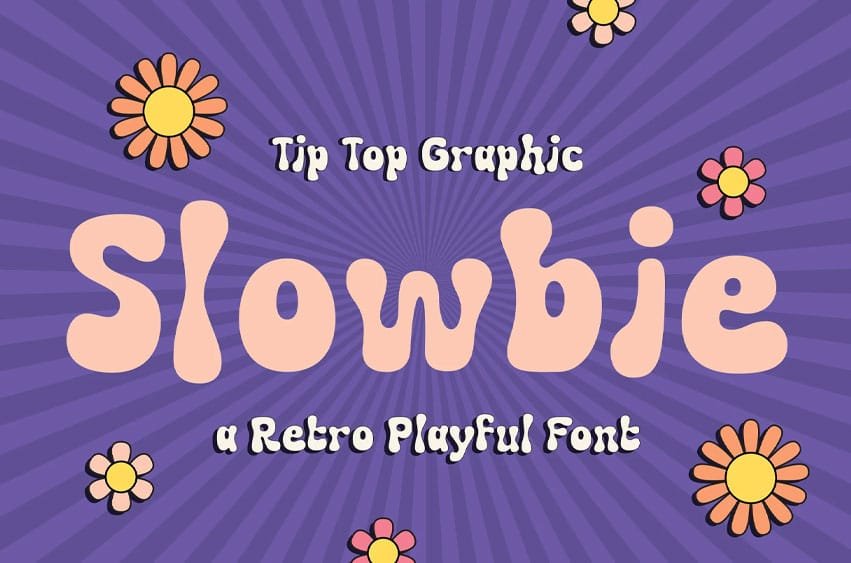
Slowbie Font is a bold and cheerful retro display font inspired by the vibrant aesthetics of the ’60s and ’70s. Featuring chunky curves, groovy letterforms, and a fun handcrafted personality, Slowbie brings nostalgic charm to every design while maintaining a fresh, modern appeal.
Perfect for projects that need a playful vintage touch, Slowbie shines in logos, branding, posters, album covers, packaging, stickers, social media graphics, children’s products, and eye-catching headlines. Its expressive style captures the essence of psychedelic, groovy, and vintage typography, making every word feel lively and memorable.
Add a splash of nostalgia and playful energy to your next project with Slowbie—the perfect Display, Retro, Groovy, Vintage, Psychedelic, and Playful font for designs that stand out.